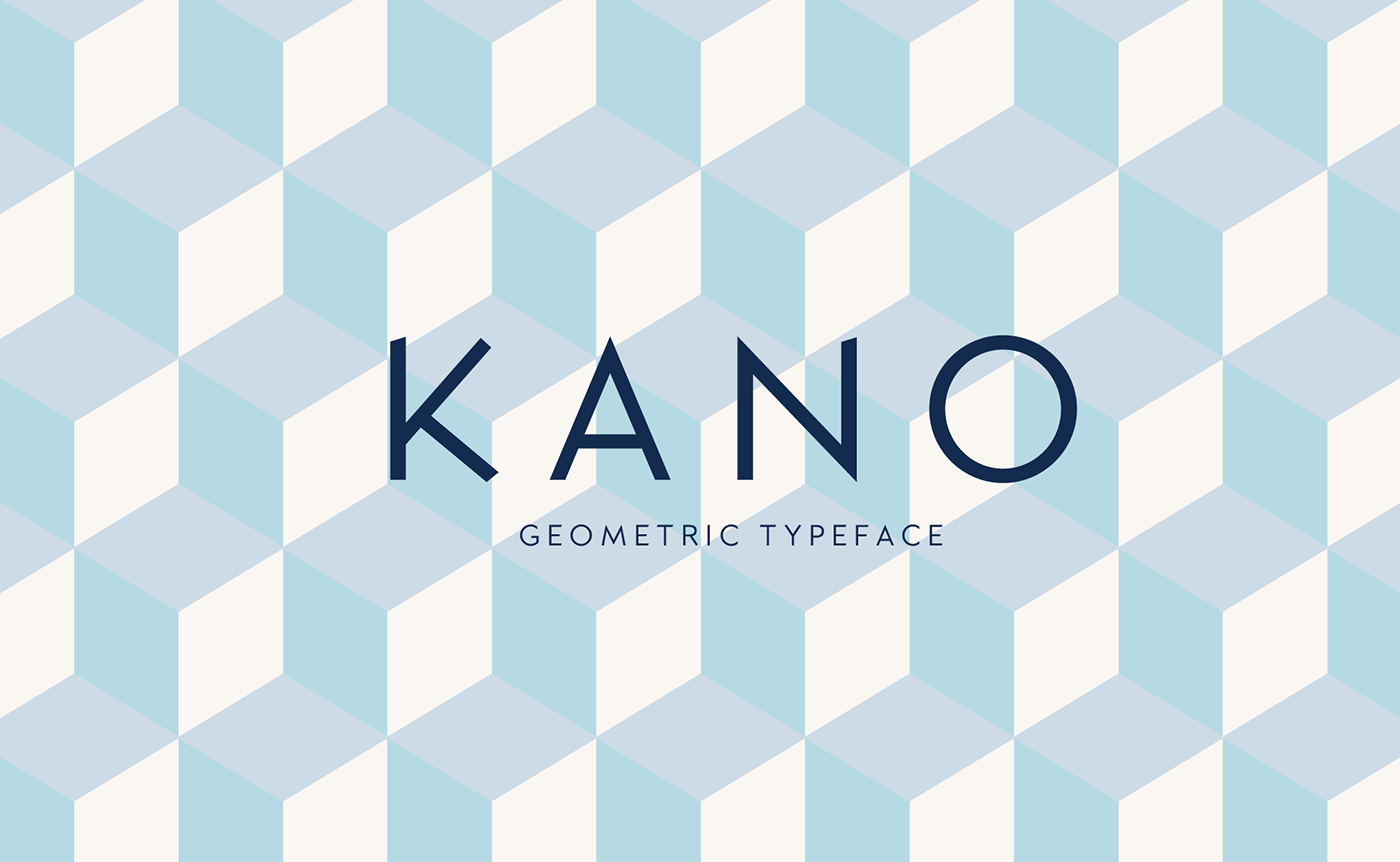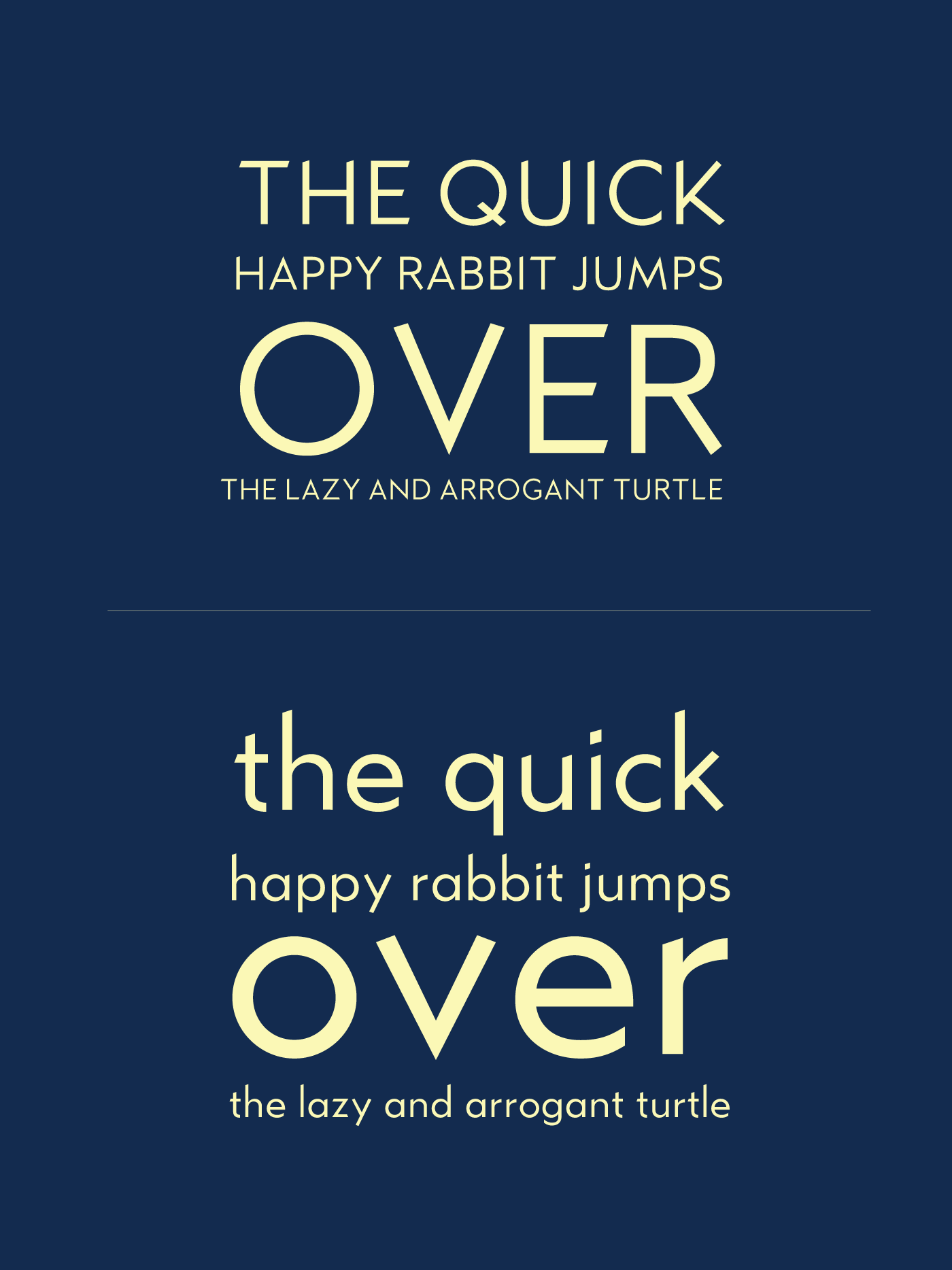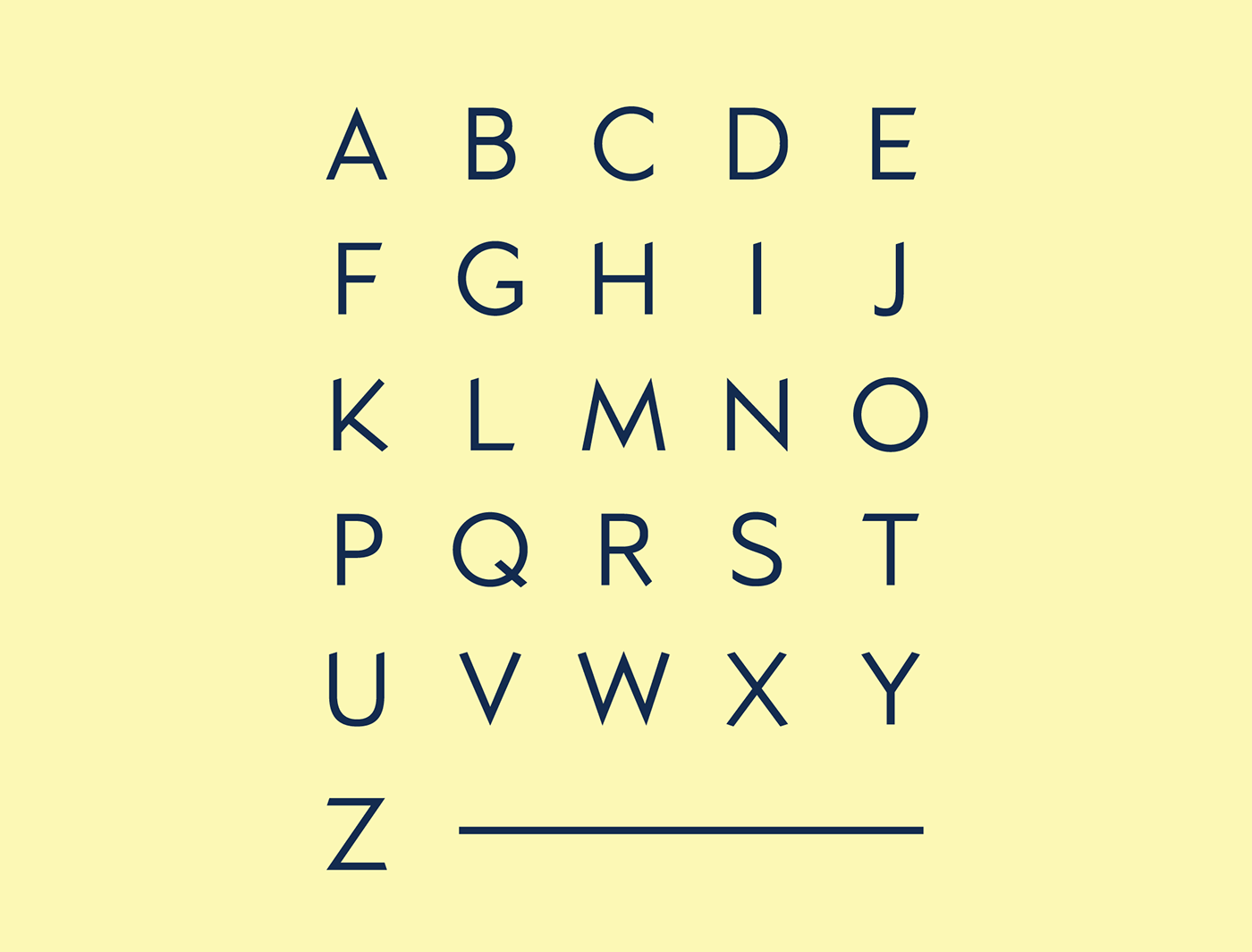
Kano Free Font
Kano free font, it’s sans serif with a geometric structure with sharp edges, looks clean and elegant and should work perfectly in big headlines, posters, flyers and other graphic projects. It’s available for personal and commercial use.
KANO free font